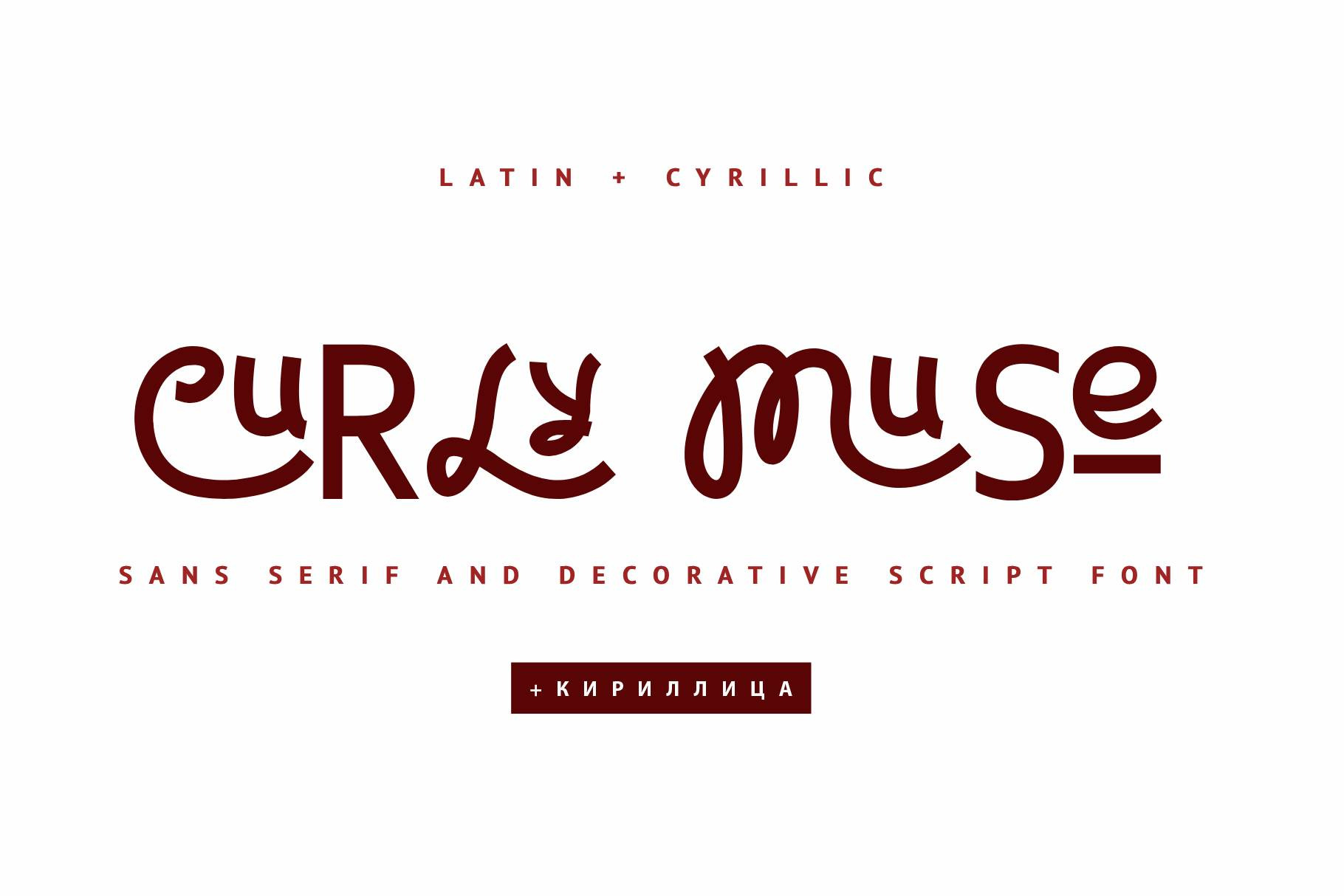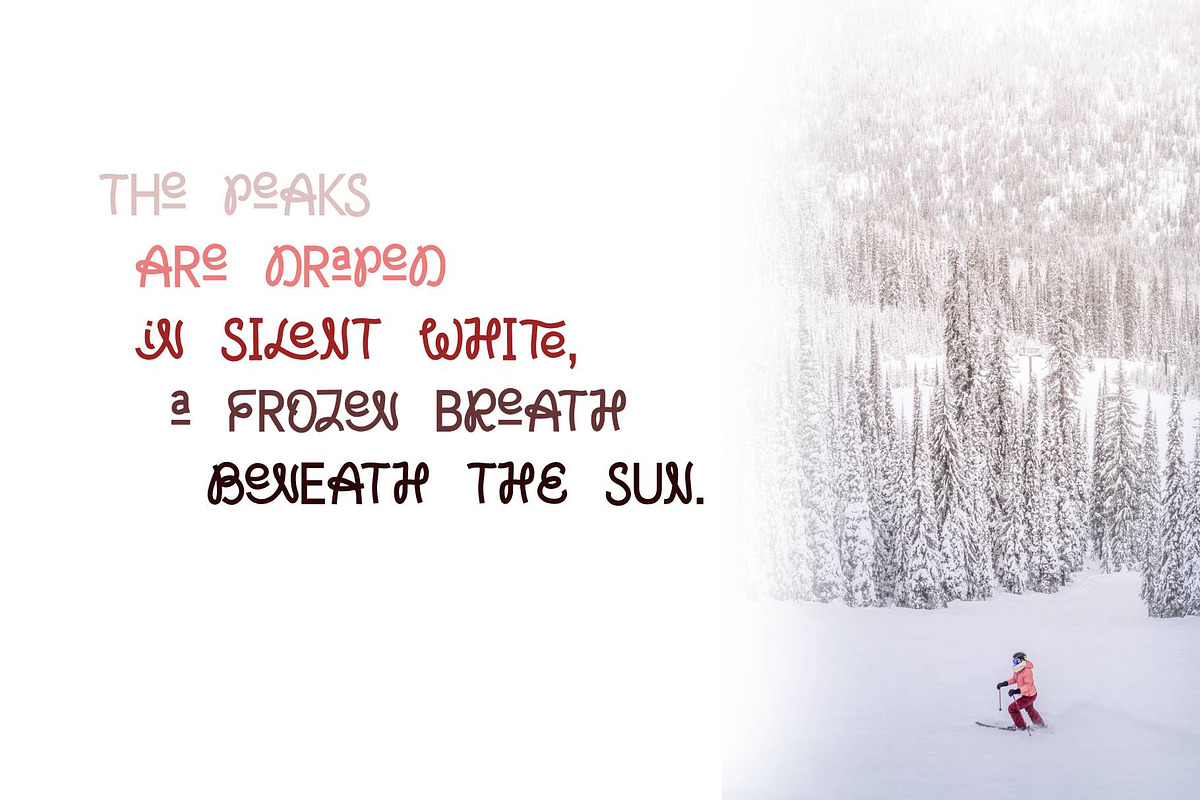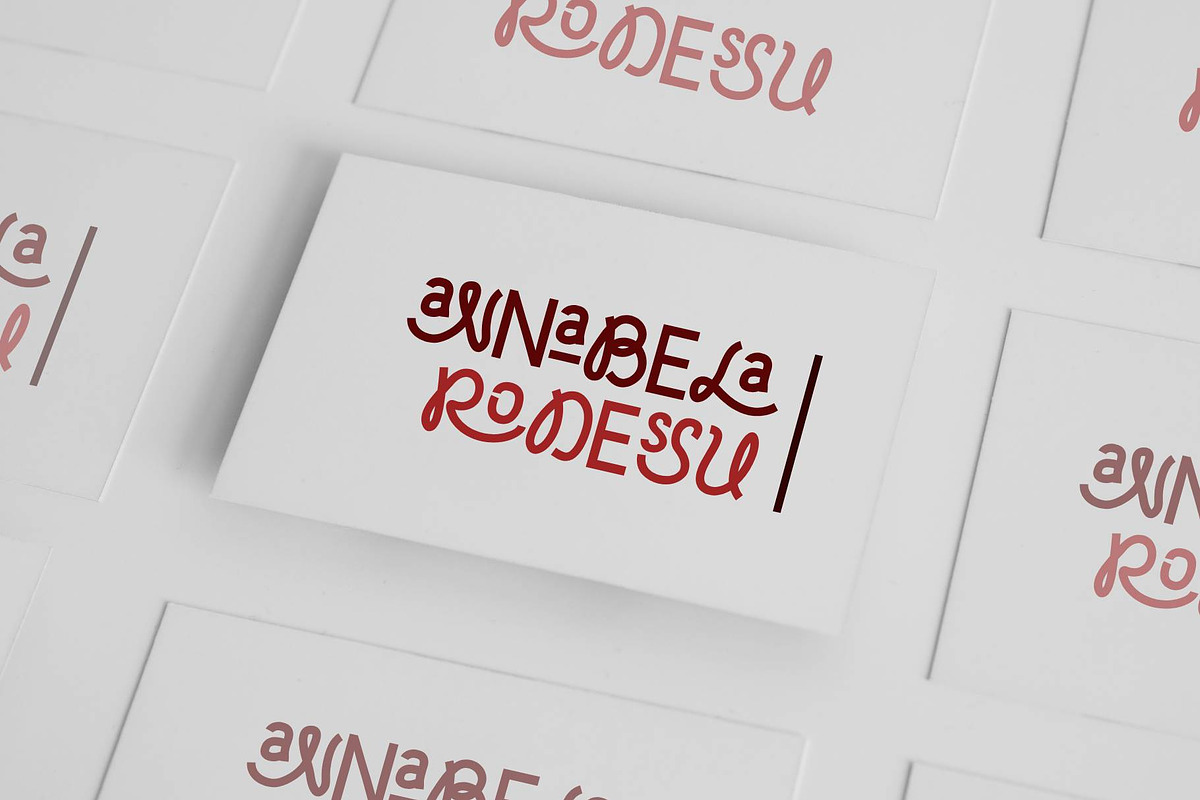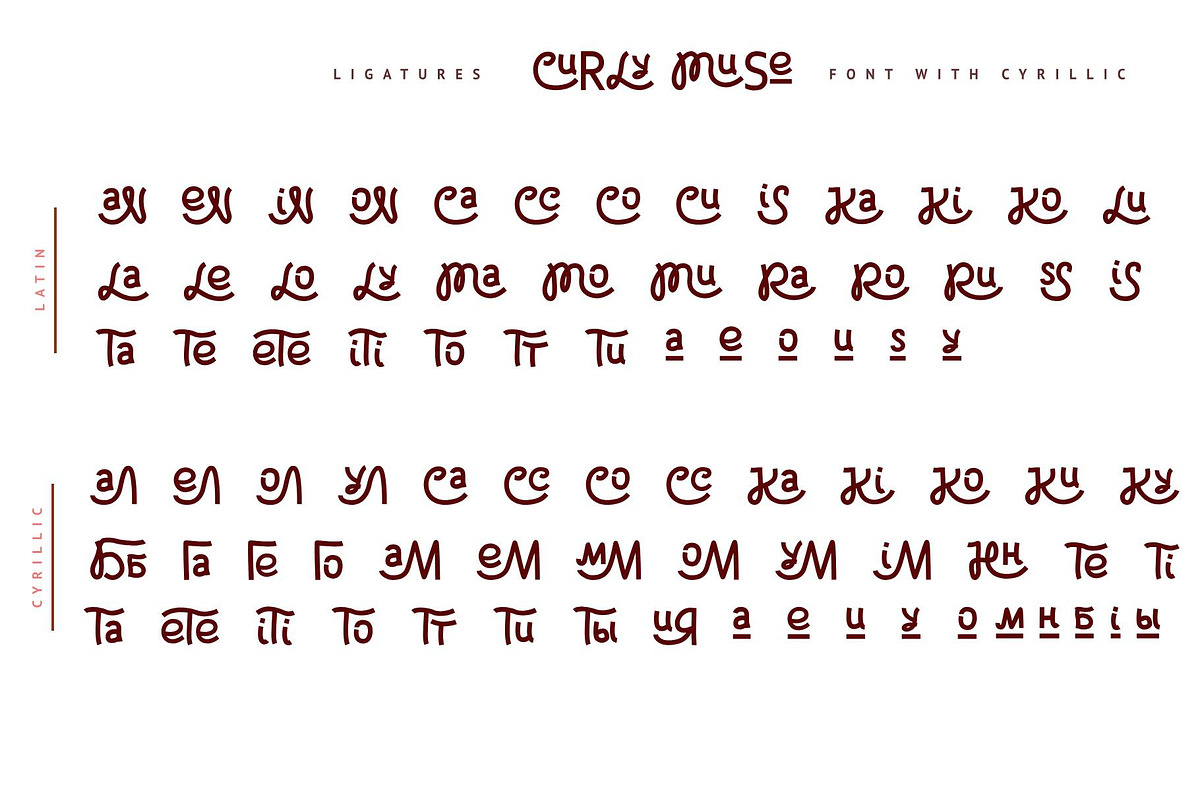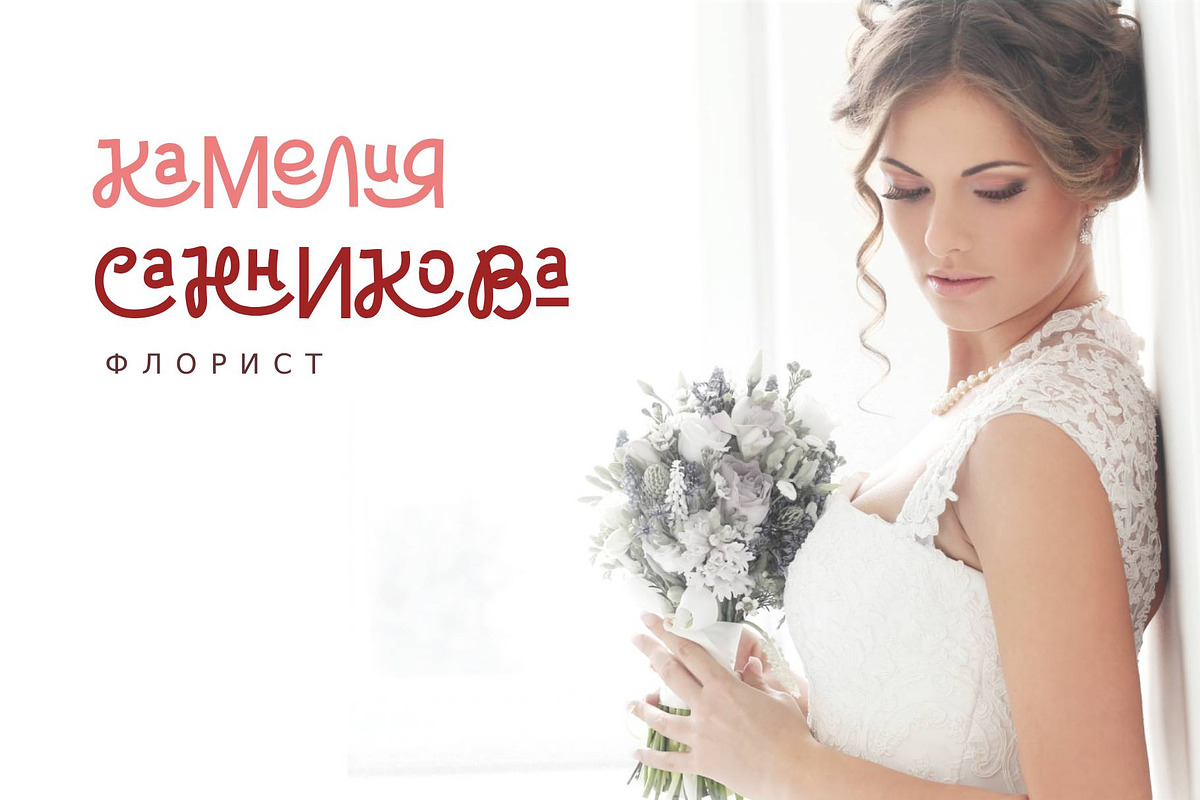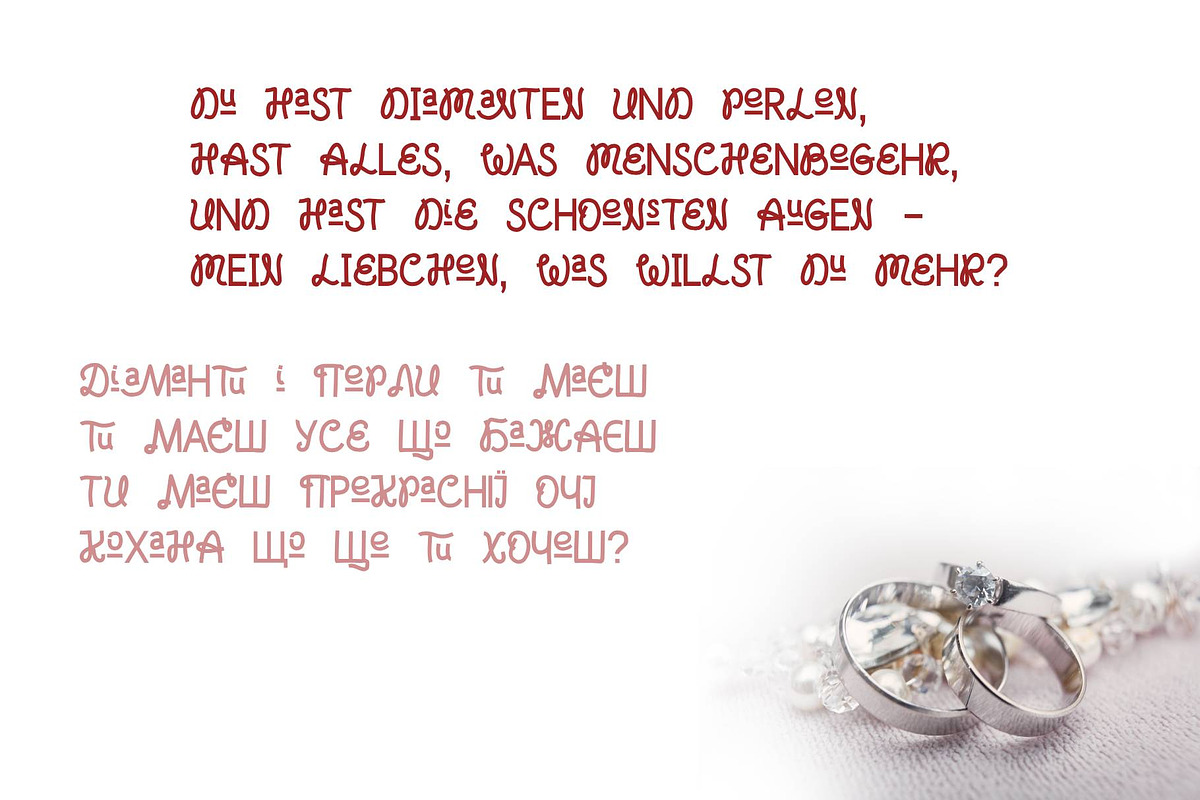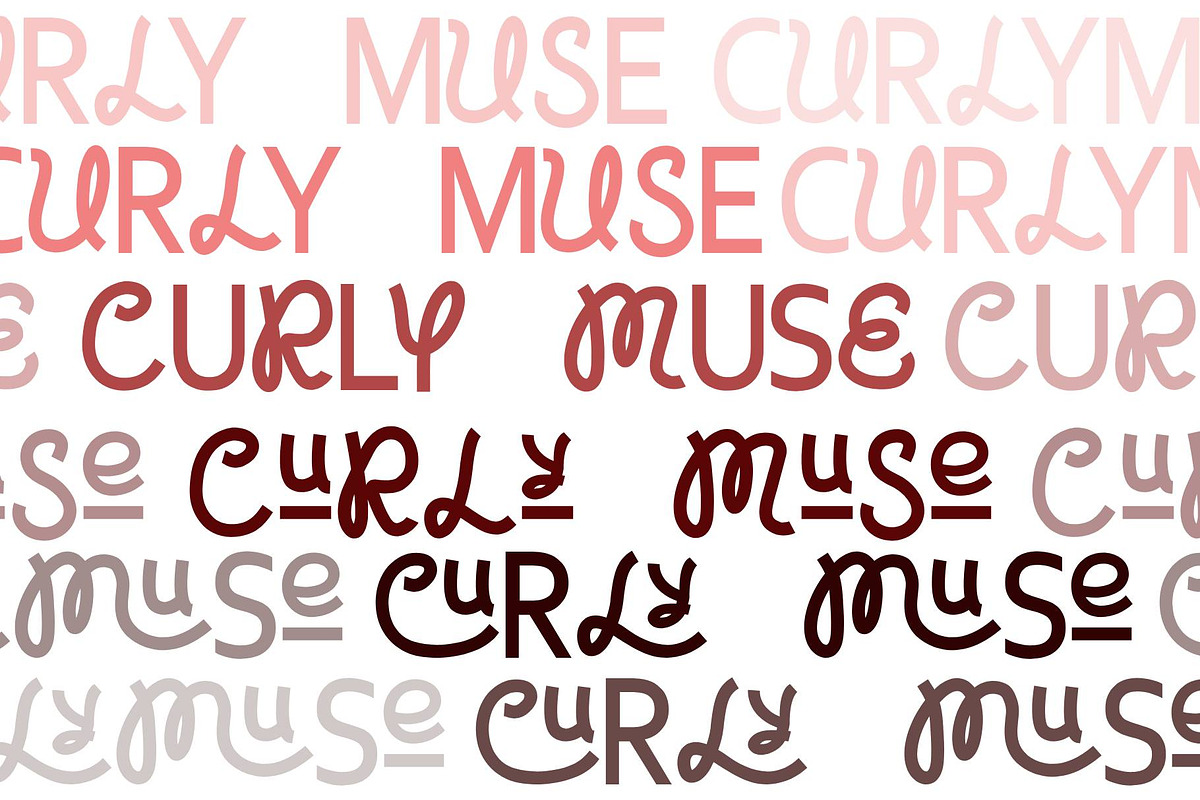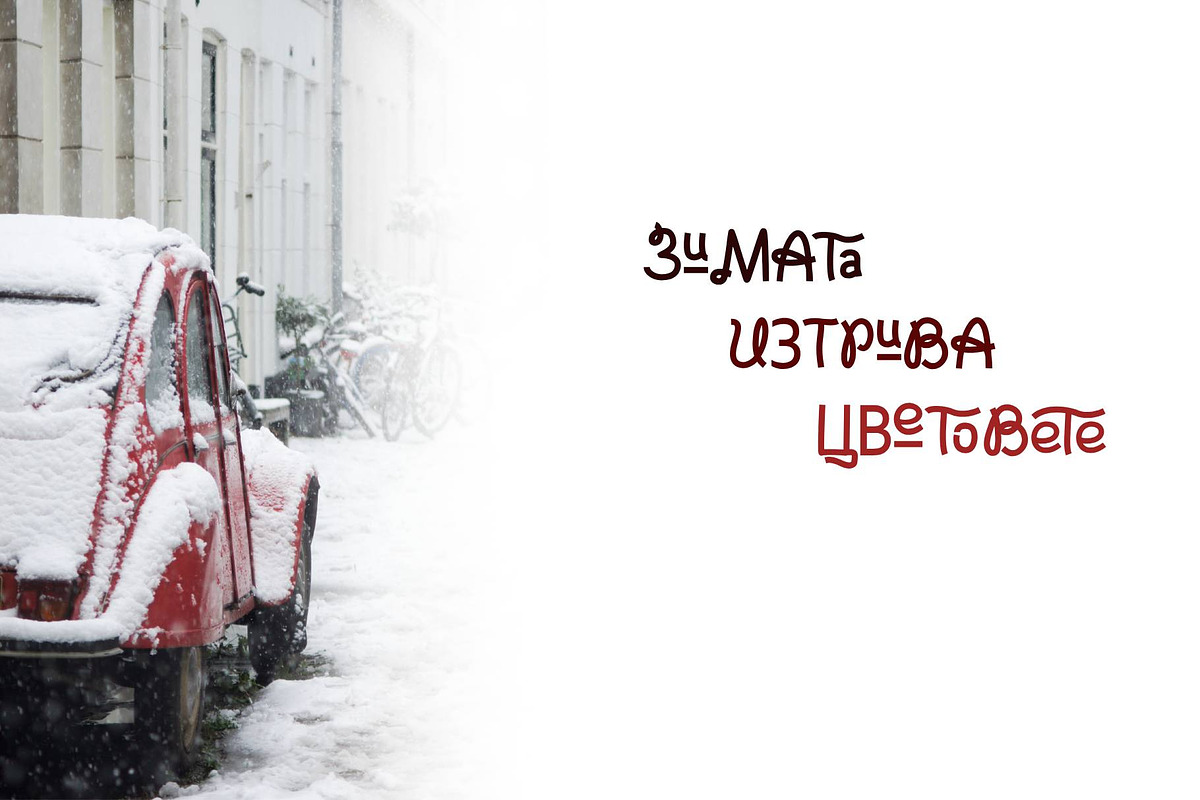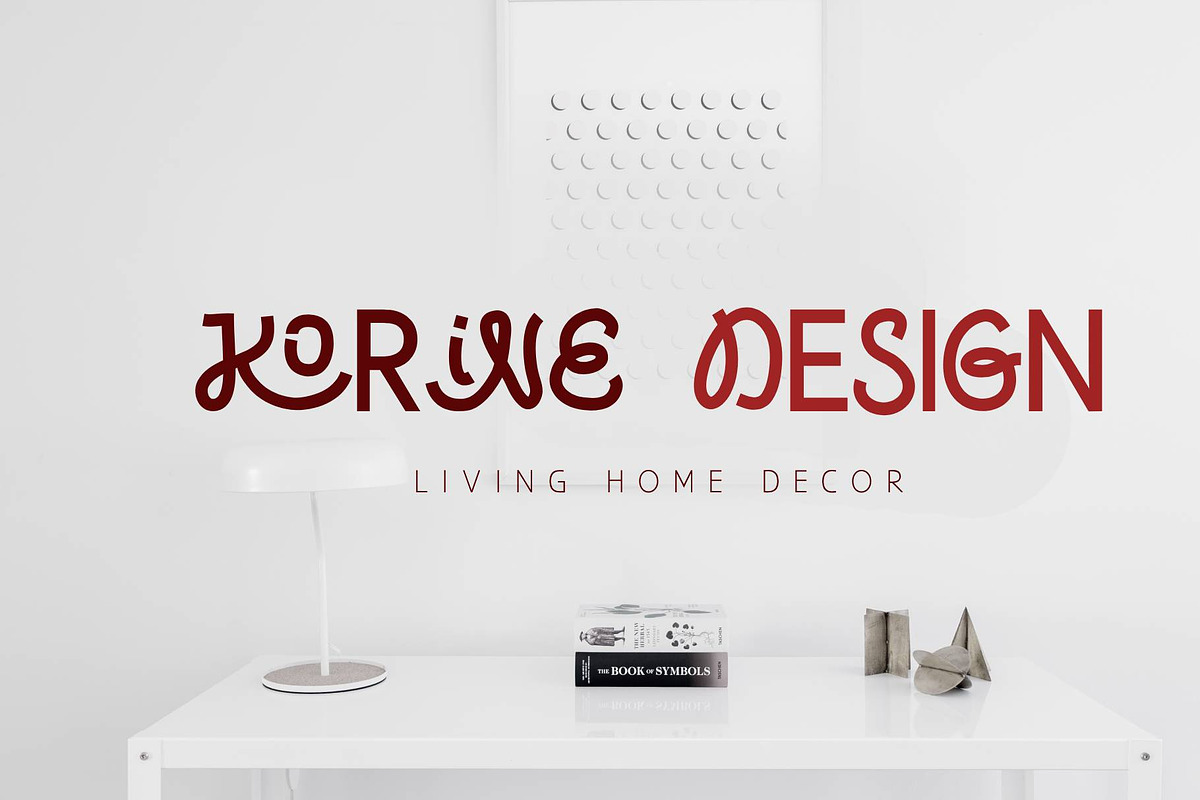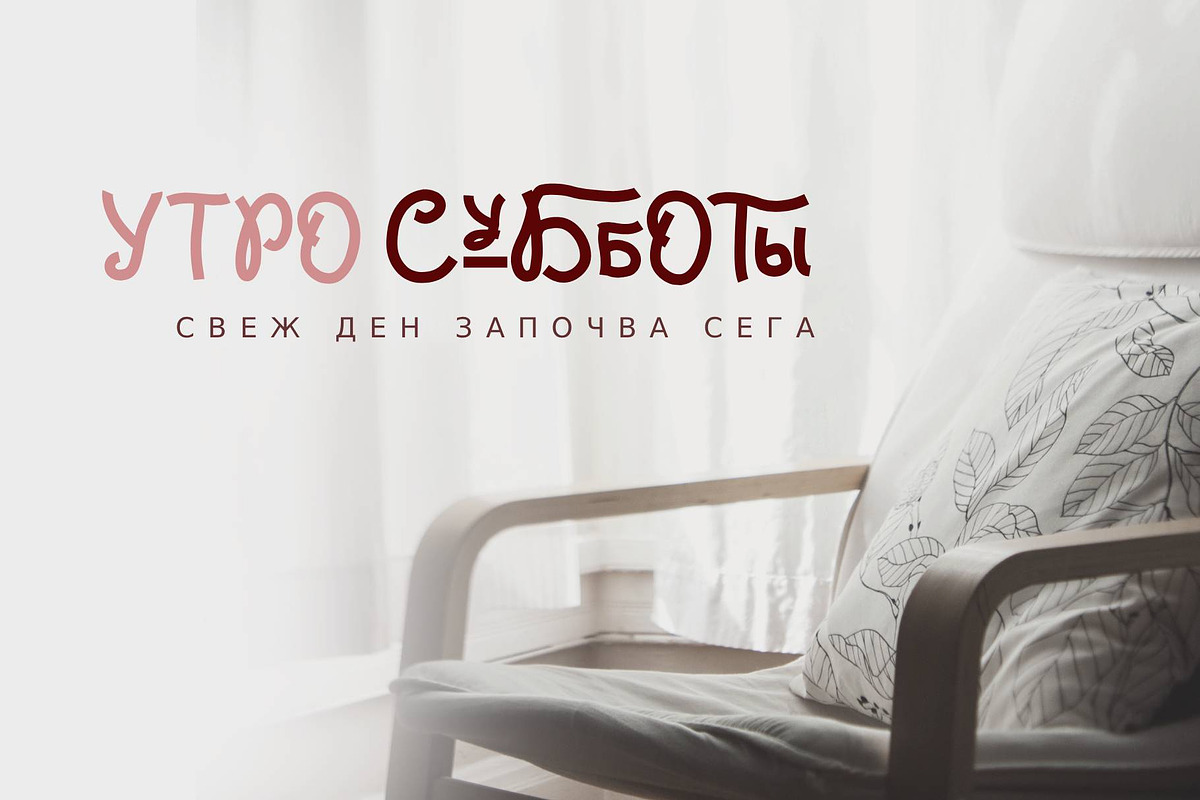
Curly Muse Cyrillic Font
Curly Muse Cyrillic Font is an expressive decorative font that will add personality to your designs
Our expressive handwritten font is designed to evoke emotion and add personality to your designs. With its natural, flowing lines and decorative flourishes, this font is perfect for projects that require a touch of warmth and authenticity. Use it for: Quotes and inspirational graphics: Create visually appealing and shareable content. Handmade crafts: Add a personal touch to your handmade products. Children's books and illustrations: Bring a sense of fun and whimsy to your designs.
And 38 latin and 44 Cyrillic ligatures can be used to create a more creative look.
Multilingual Support for 82 languages: Abaza, Avar, Adyghe, Afrikaans, Agul, Albanian, Asturian, Basque, Belarusian, Bulgarian, Breton, Buryat, Valencian, English, Estonian, Faroese, Finnish, French, Frisian, Gaelic (Scottish), Galician, German, Hungarian, Icelandic, Indonesian, Ingush, Irish, Italian, Kabardino-Circassian, Karakalpak (Lat.), Karachay-Balkar, Karelian, Kazakh, Komi-Permyak, Komi-Zyryan, Kurdish (Lat.), Kumyk, Lak, Latin, Latvian, Lezgin, Lithuanian, Maori, Mongolian (Kyrgyz.), Mordovian-Erzya, Mordovian-Moksha, Nogai, Norwegian, Occitan, Polish, Portuguese, Rhaetian-Romance, Romanian, Russian, Rutul, Sami Lule, Slovak, Slovenian, Spanish, Swedish, Tabasaran, Tat, Tswan, Tuvinian, Turkmen (Lat.), Ukrainian, Uzbek (Lat.), Valencian, Welsh